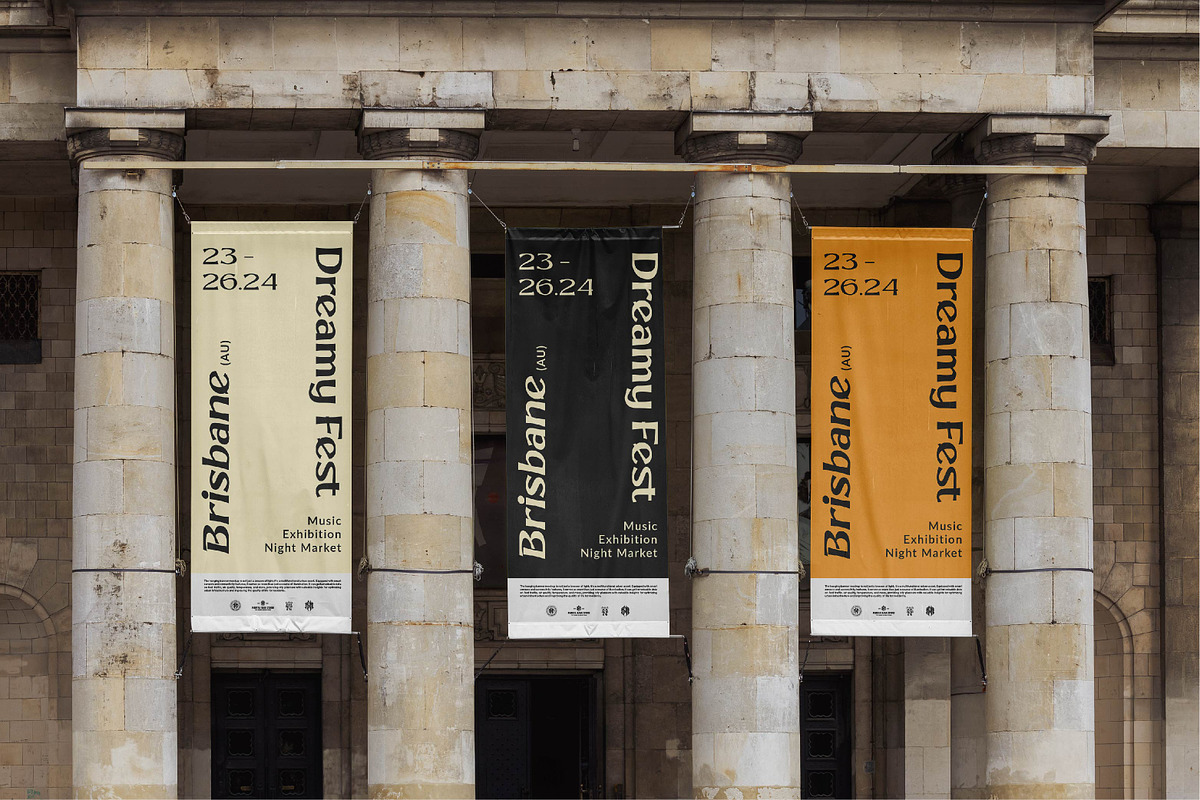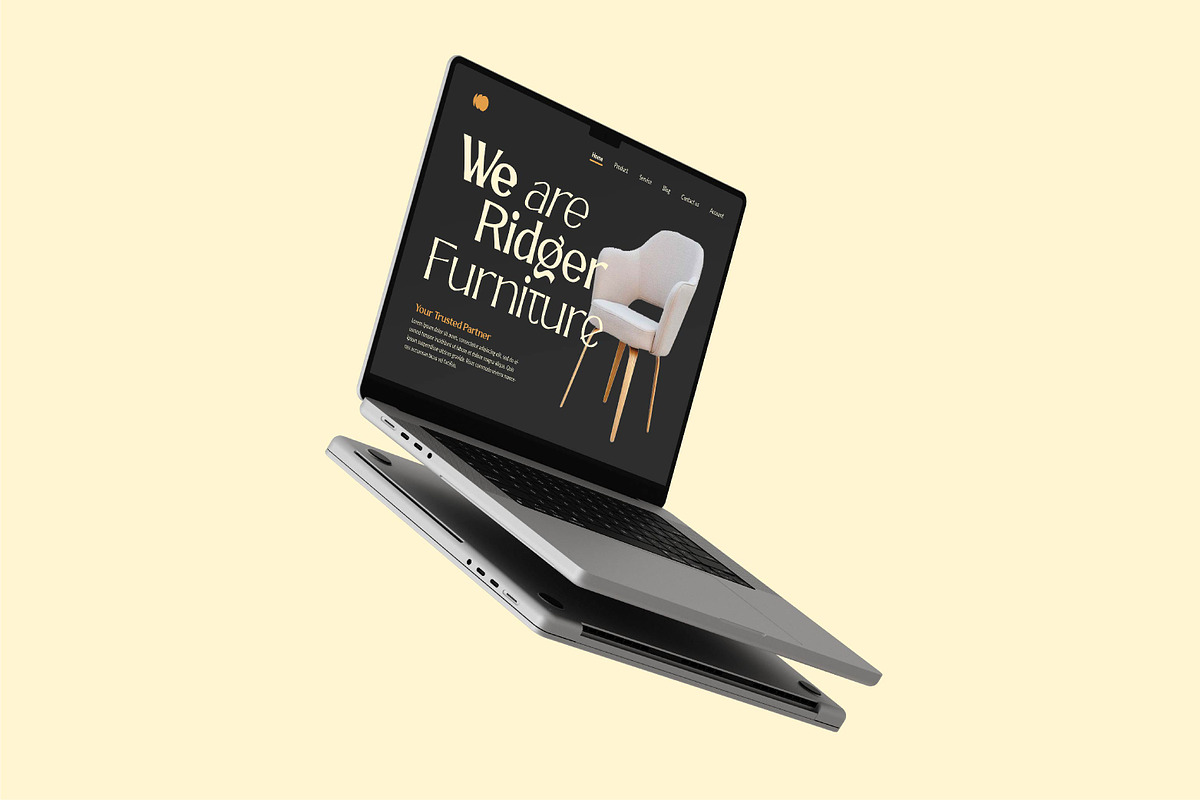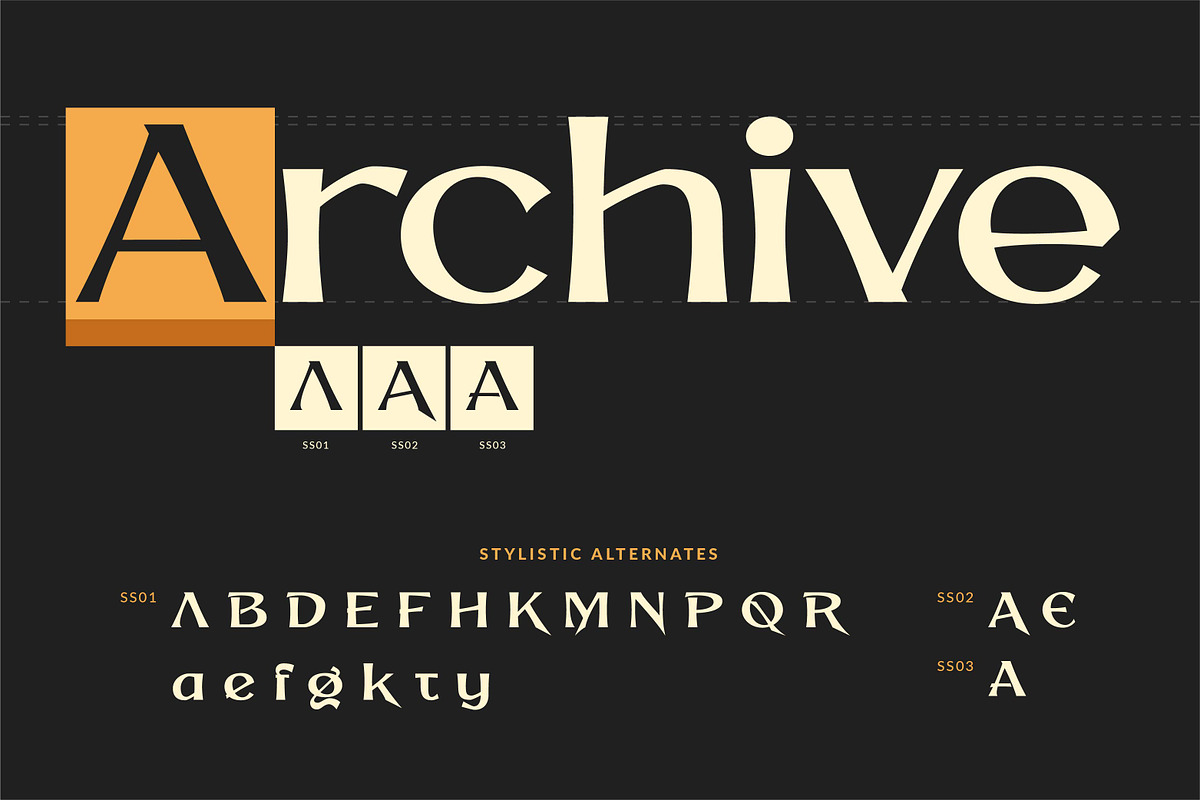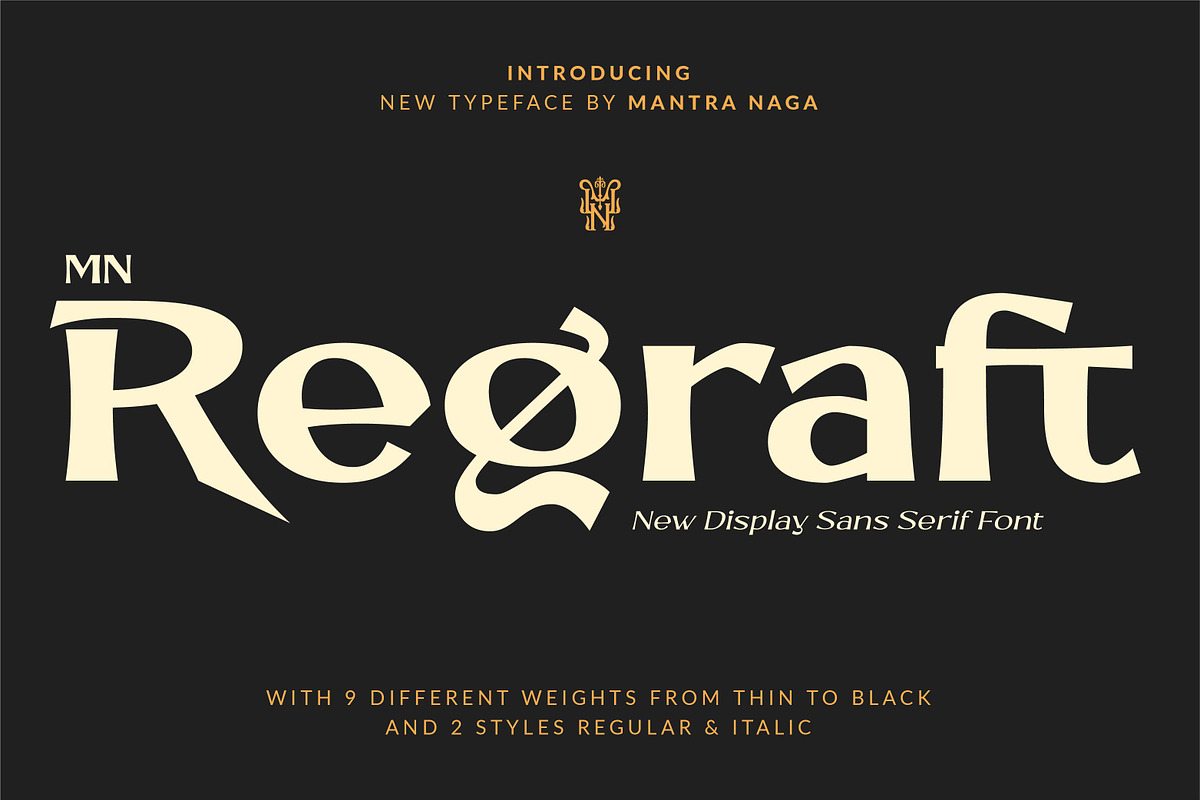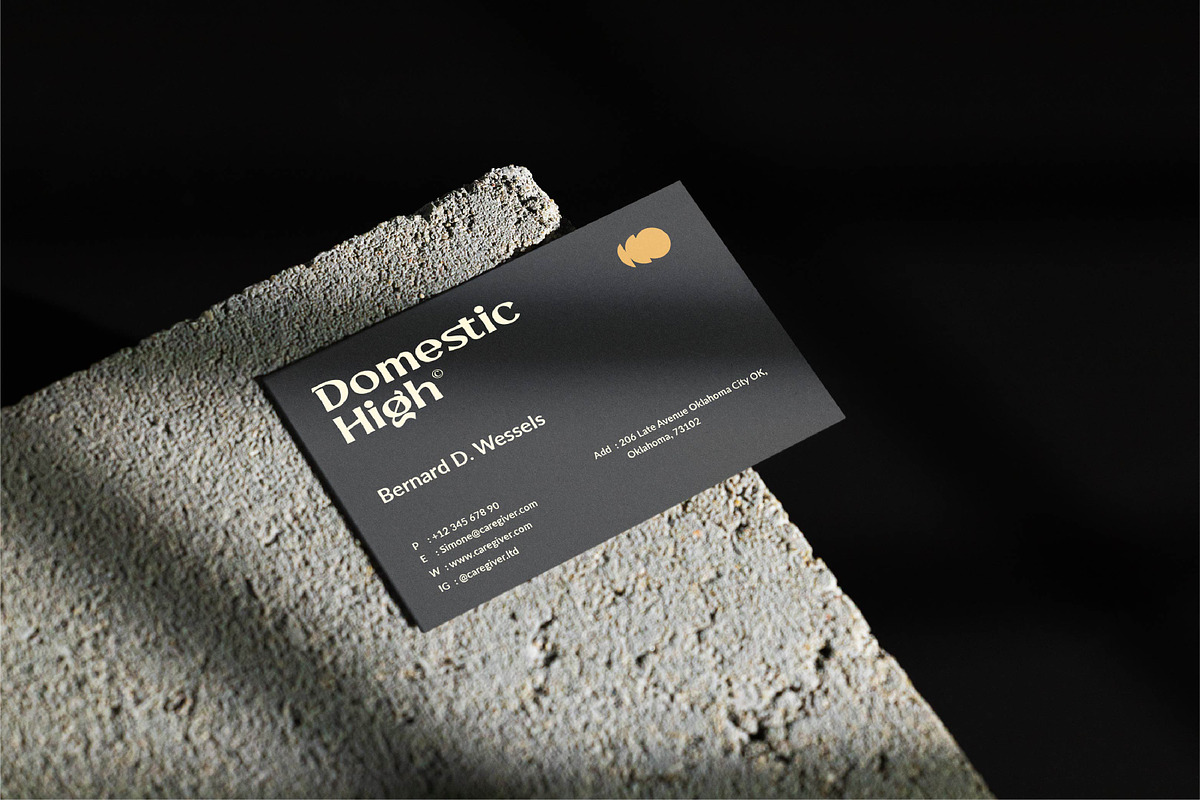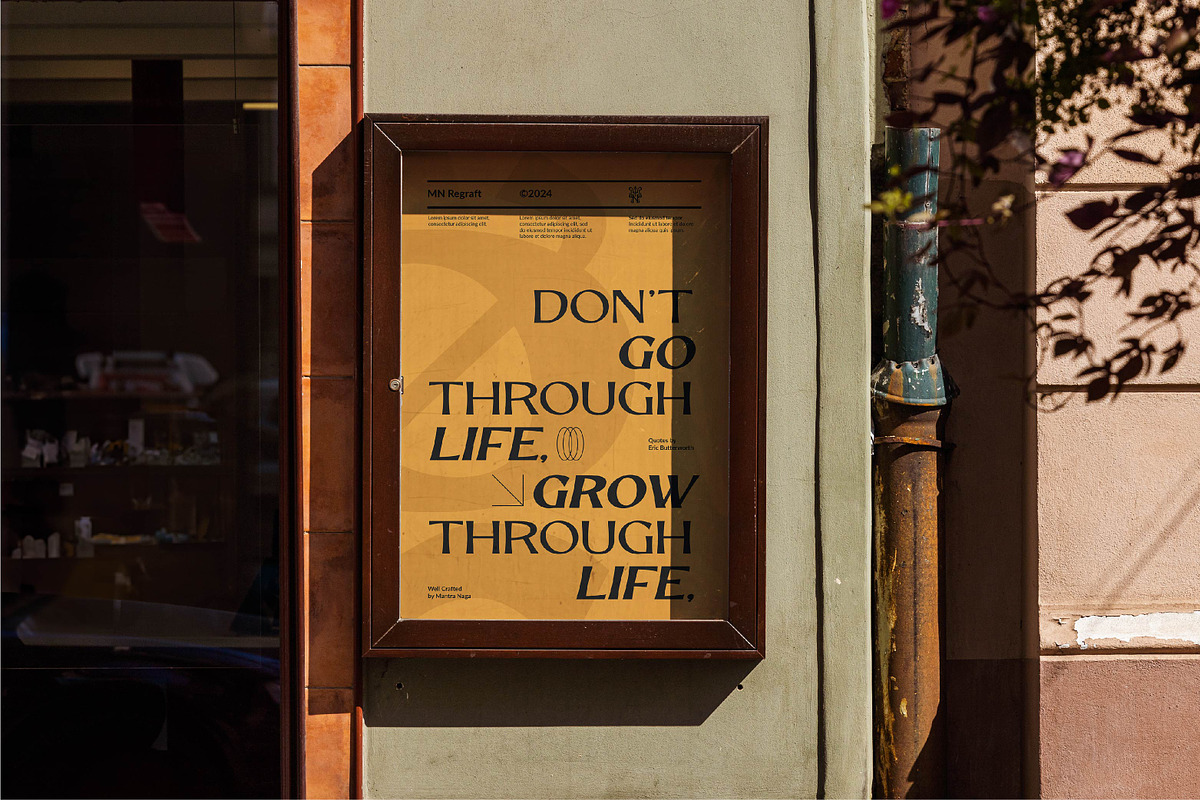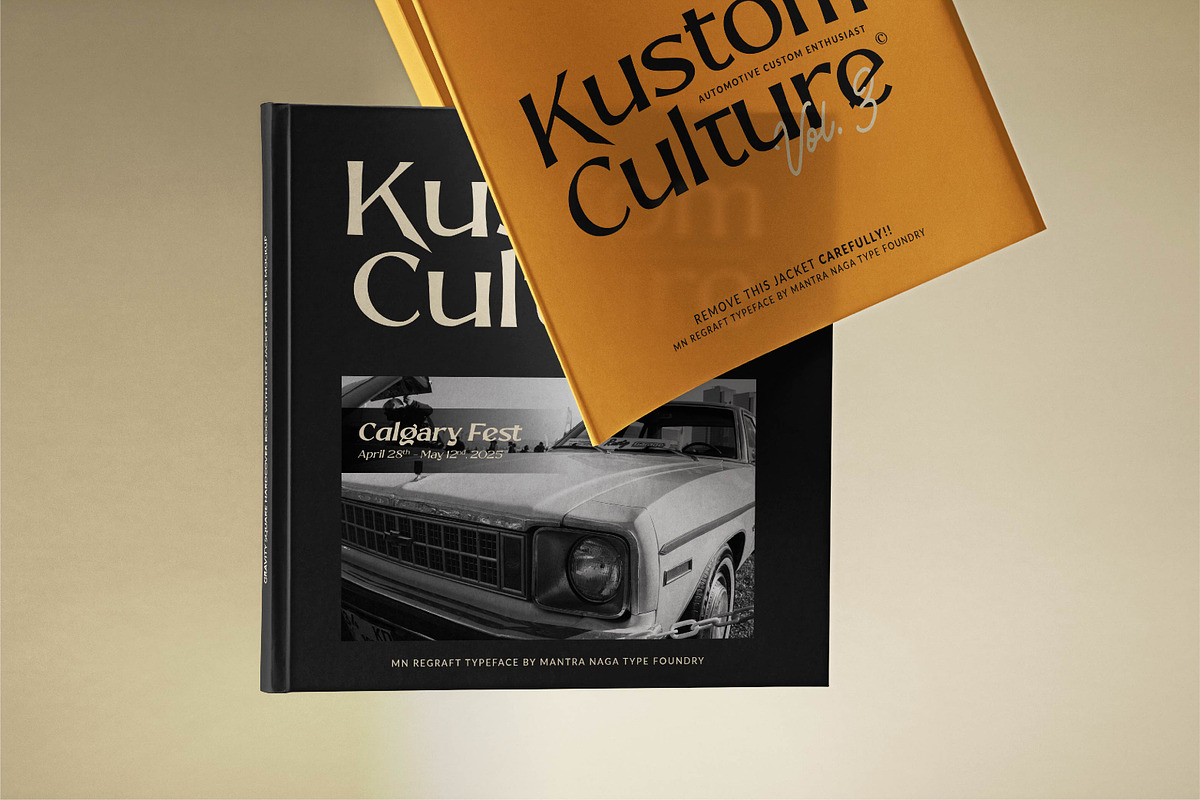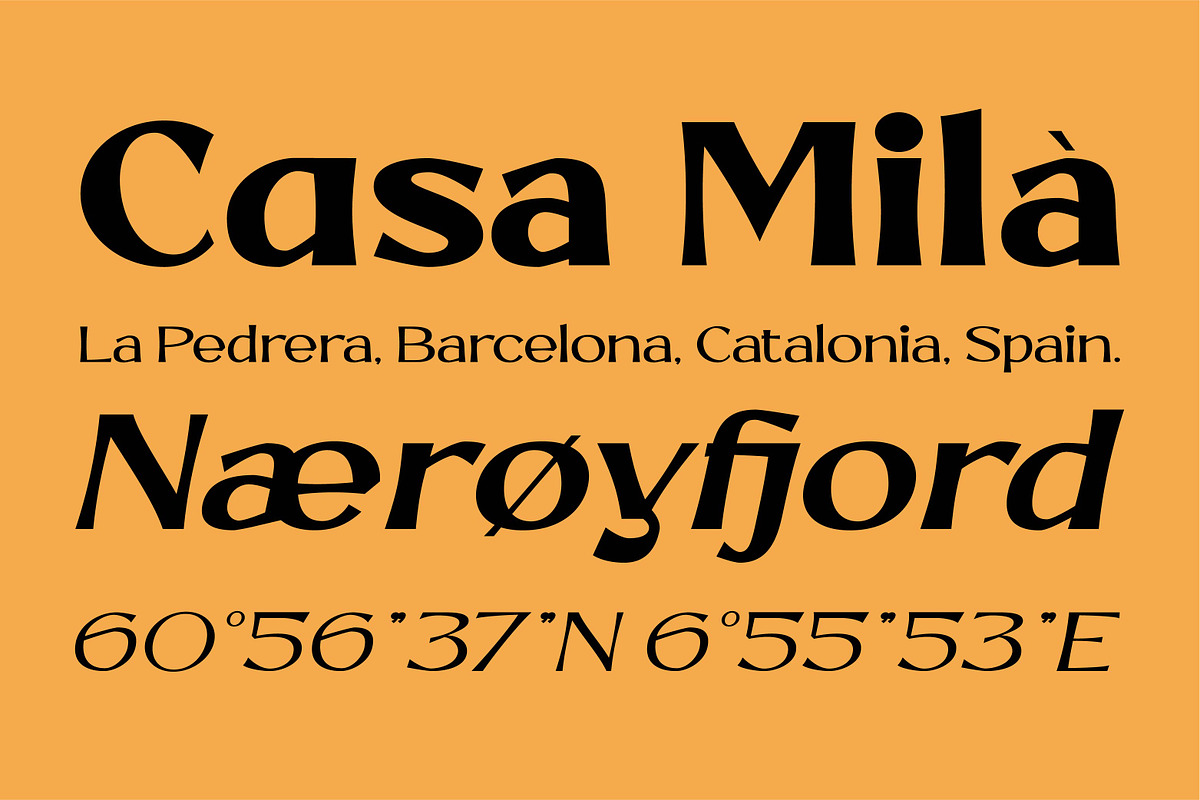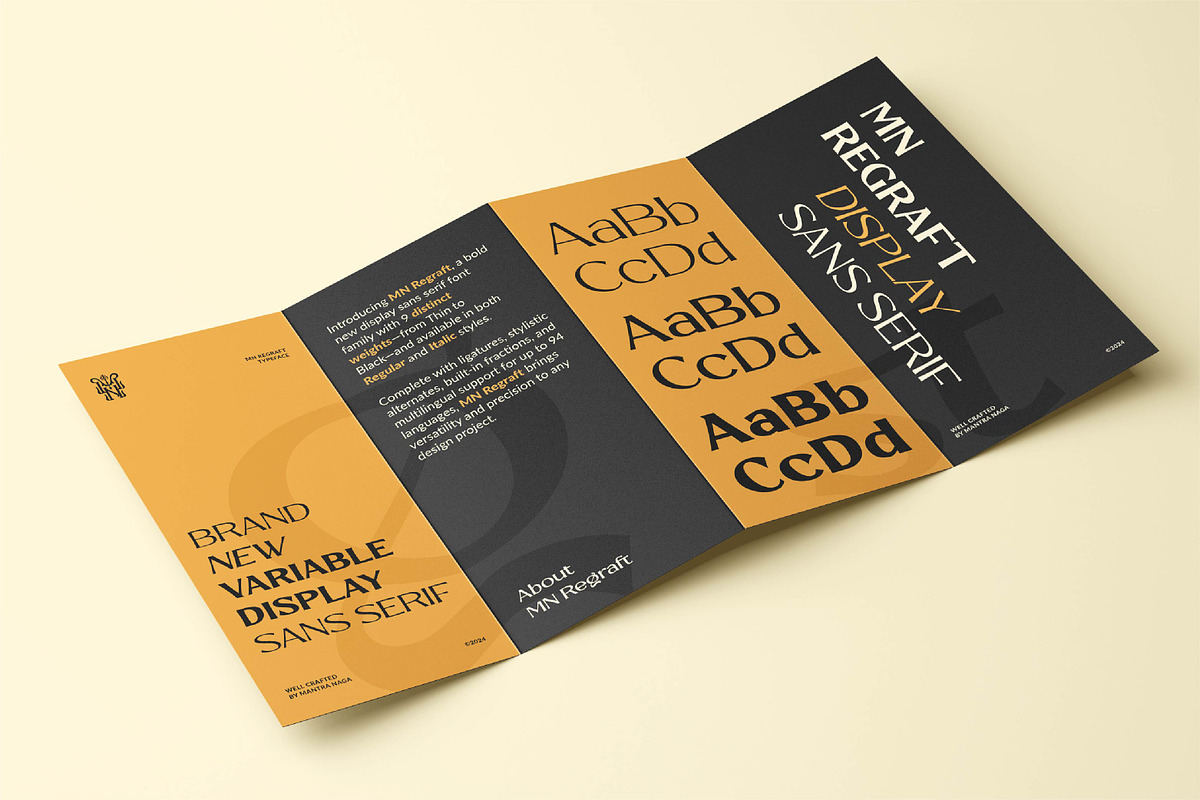
MN Regraft - Display Sans Serif Font
MN Regraft, a meticulously crafted display sans serif font designed to make a bold statement. With 9 different font weights, ranging from thin to black, and 2 versatile styles—regular and italic—MN Regraft offers a wide range of design possibilities. Its refined stroke contrast adds a modern flair, making it perfect for headlines, titles, logos, and other display needs where a distinctive, contemporary typeface is essential. Delivering both visual emphasis and authority, MN Regraft conveys strength and stability, making it the go-to choice for designers seeking a sleek yet commanding font for their projects
- Multi Language: 94 Language Support
- Ideal Use: Versatile use, especially headline fot editorial, branding, web design, etc
- Opentype Features: 441 Glyps, 11 Ligatures set, 3 Stylstic Sets, Fractions